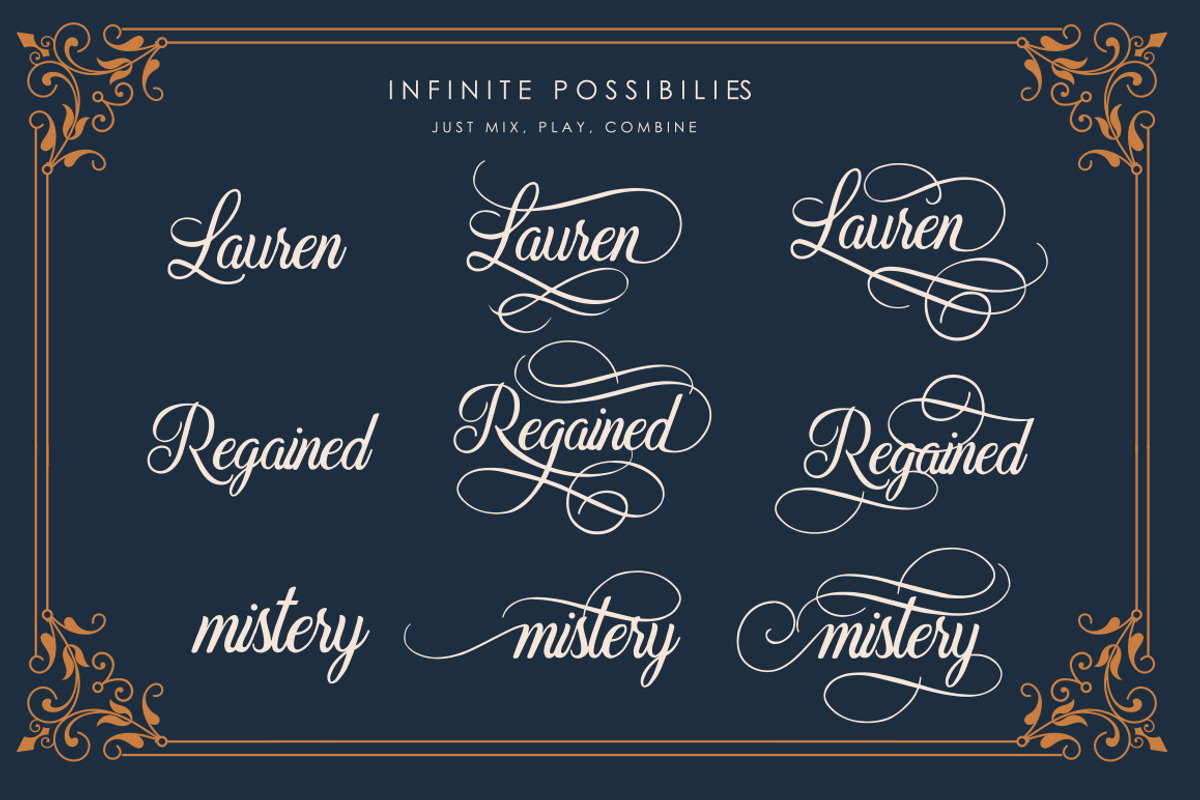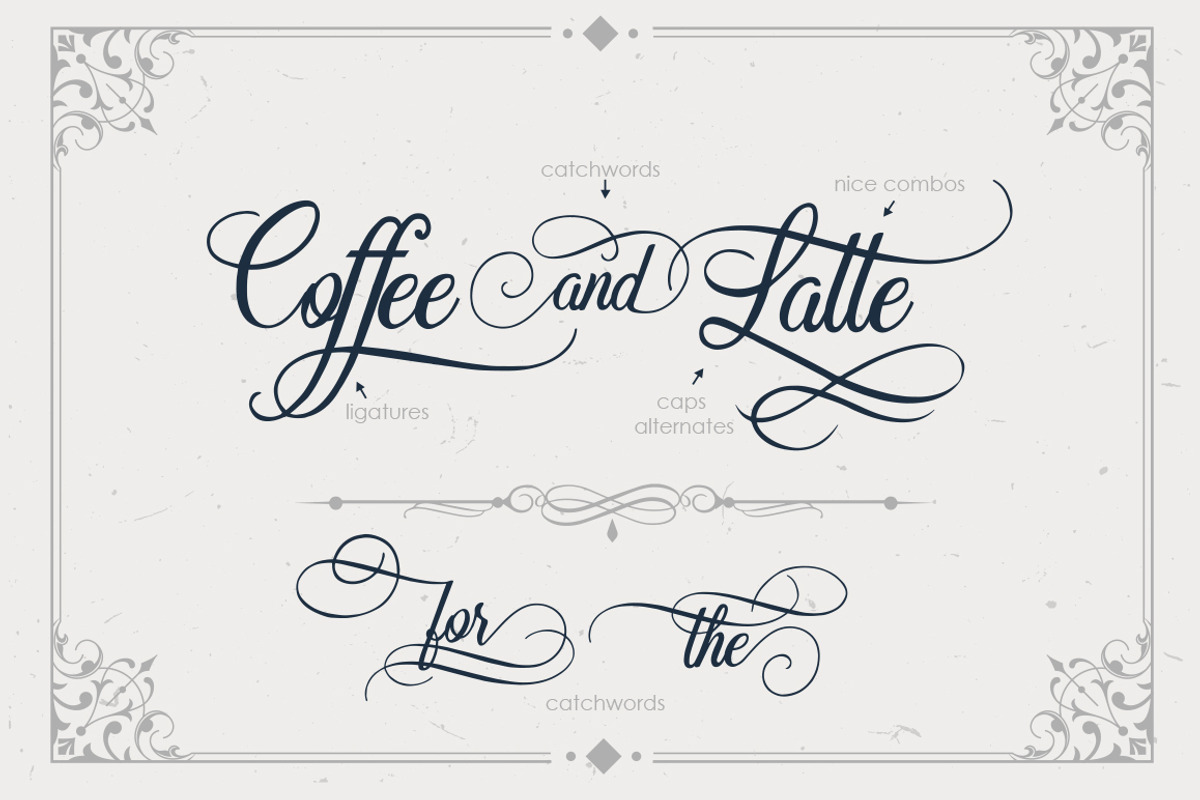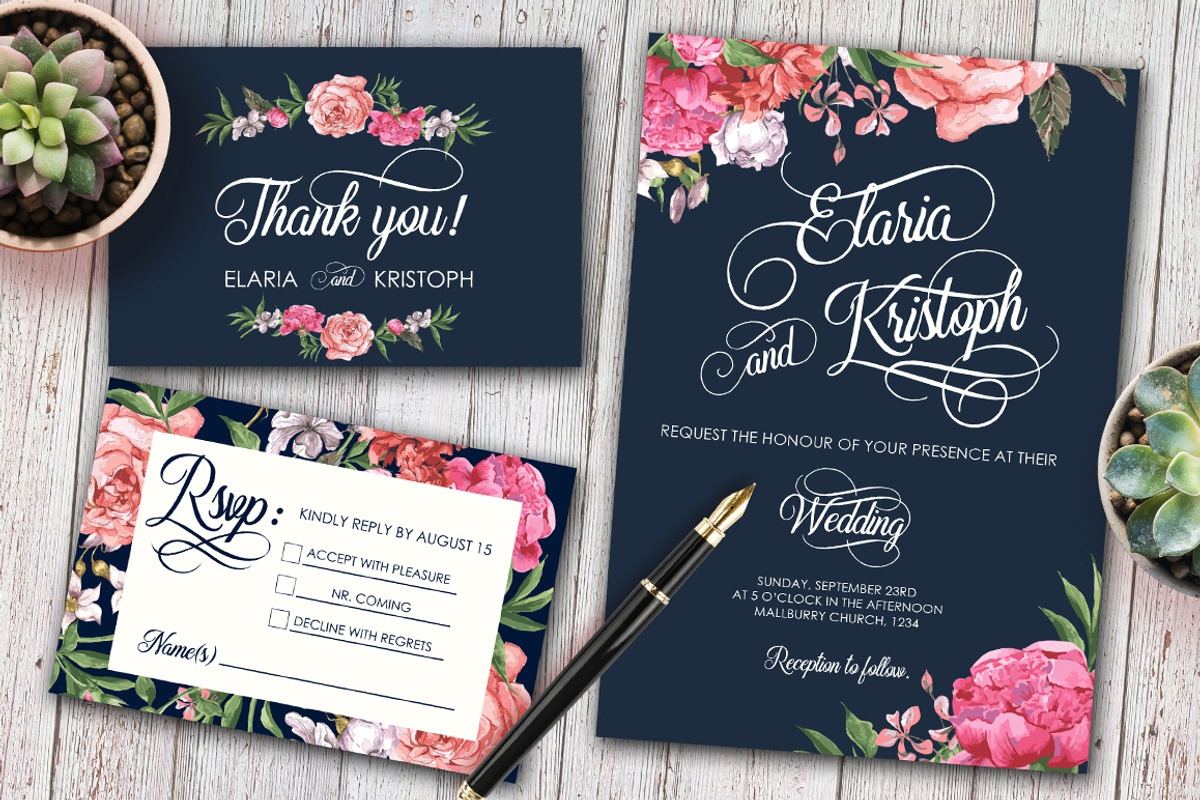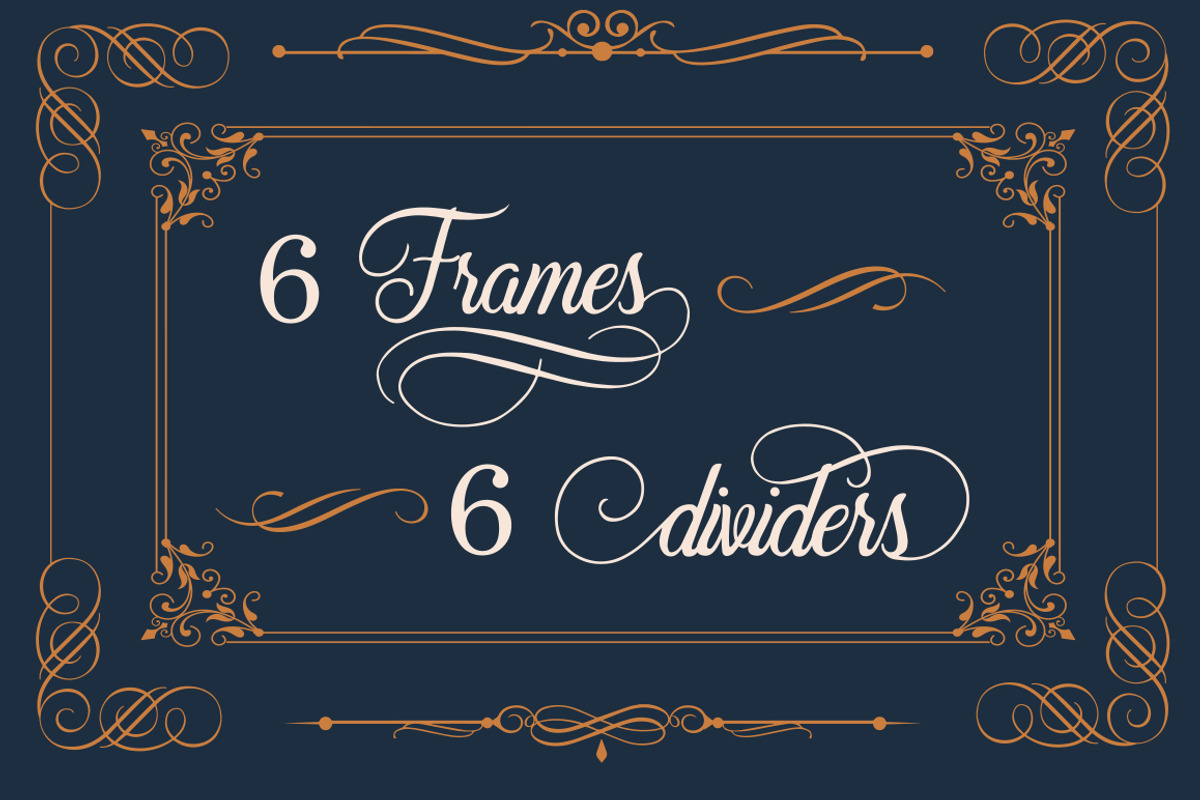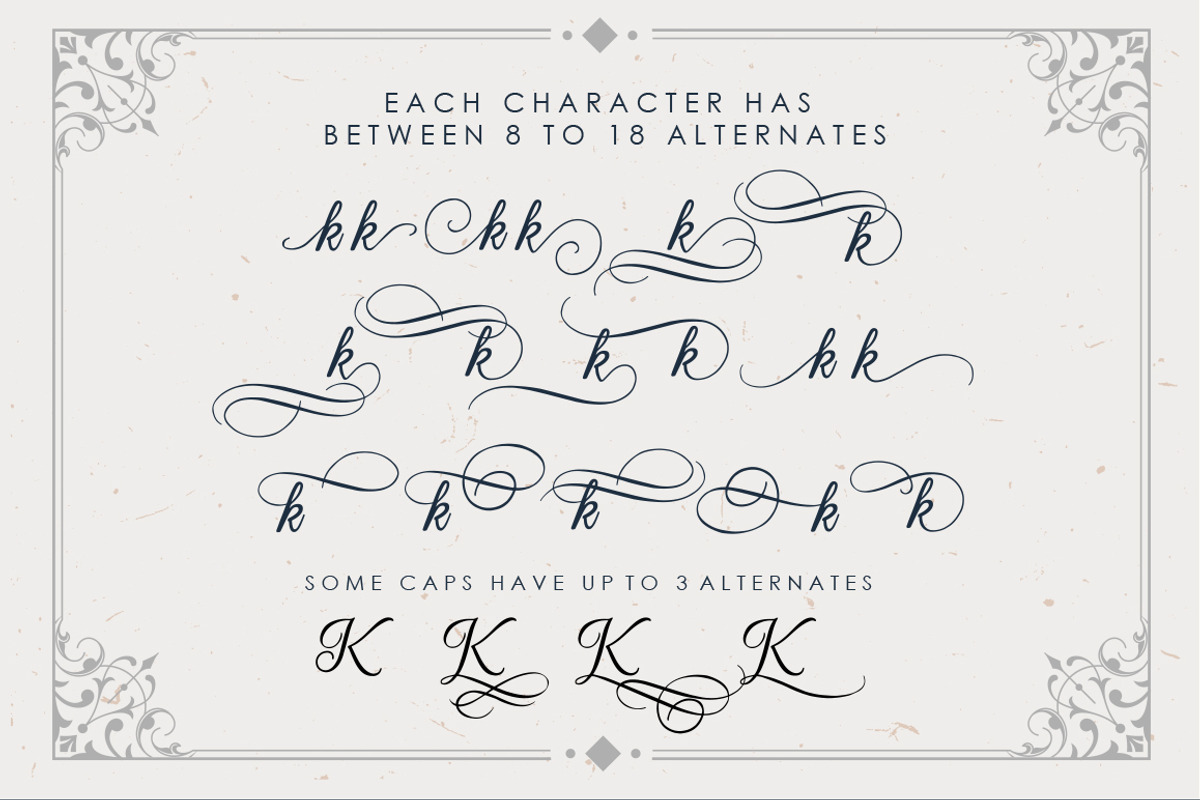
Beradon Script -Elegant Wedding font
Beradon Script -Elegant Wedding font by BlackCatsMedia is a font selected for branding, posters, packaging, typography.
Why Beradon Script -Elegant Wedding font is worth a look
Beradon Script -Elegant Wedding font by BlackCatsMedia fits naturally into Branding, posters, packaging, typography.